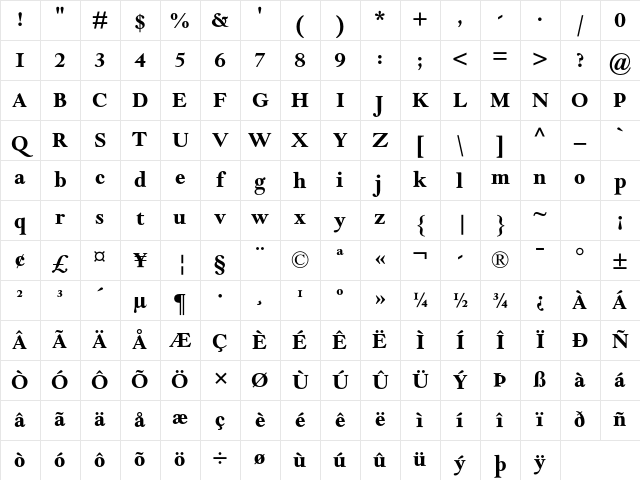
Goudy Modern MT Std Bold
Design Context for Goudy Modern MT Std
Goudy Modern MT Std is a composed and adaptable typeface that performs quietly and consistently across a wide range of design contexts. Its bold stroke weight gives it real presence on the page.